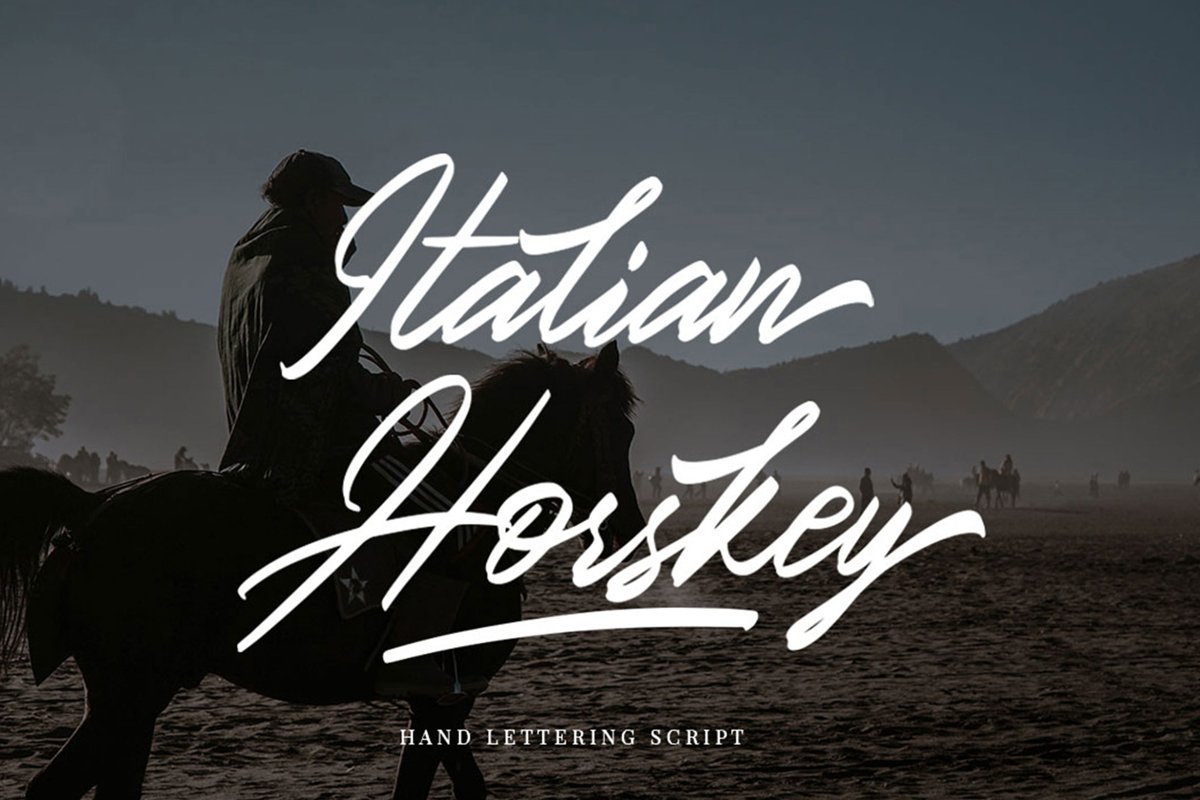
Italian Horskey Signature Script
Italian Horskey Swash
Italian Horskey
Italian Horskey Signature Handlettering Script is new fashionable handwriting font and super cool with sexy style. And also the Capital letters with contemporary and sophisticated accents. Italian Horskey Signature Handlettering Script offers beautiful typographic harmony for a diversity of design projects, including logos & branding, wedding designs, signature, social media posts, advertisements & product designs.
Italian Horskey Signature Handlettering Script includes Italics, full set of lovely uppercase and lowercase letters, ligature, multilingual symbols, numerals, and punctuation. And this Font has given PUA unicode (specially coded fonts).
• Basic Latin A-Z and a-z
• Alternative Stylistic
• Symbols
• Stylistic Set
• PUA Encode
• Multilanguage Support